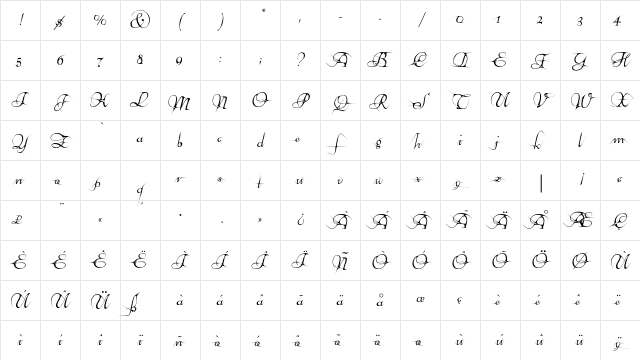
AraneaEF Regular Free Font
AraneaEF Regular
AraneaEF Family
AraneaEF Regular
Design Context for AraneaEF
AraneaEF is a composed and adaptable typeface that performs quietly and consistently across a wide range of design contexts.
Pro Tip: Use AraneaEF in both headline and body roles to test its range before committing to a single application.